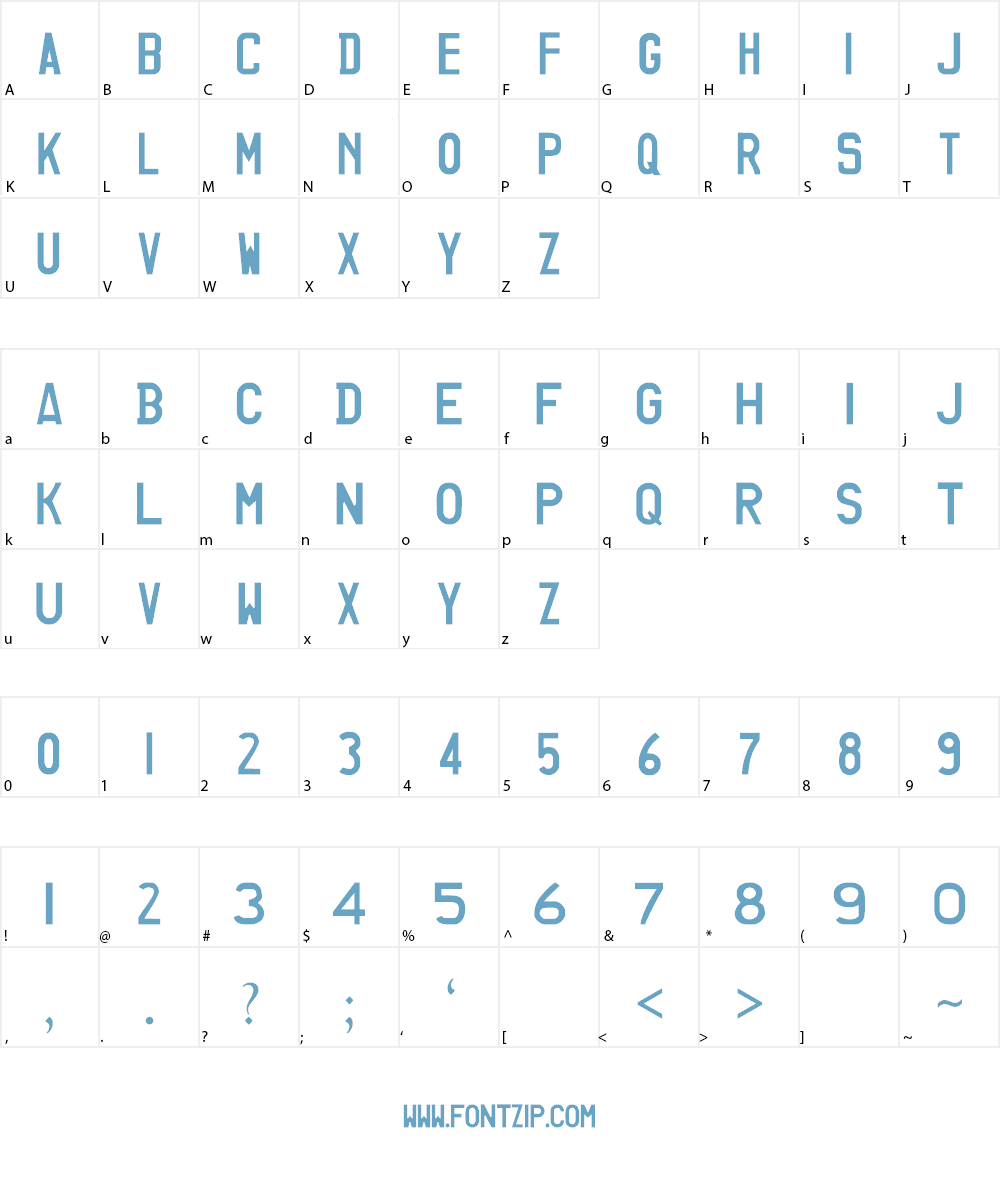
I recreate this font, because I can't find it on internet. I draw it according the picture reference with 90% Accuracy.
To make the upper number, Hold shift while entering the number.
Ex. I want to enter 400 to upper number, so I just type $)).